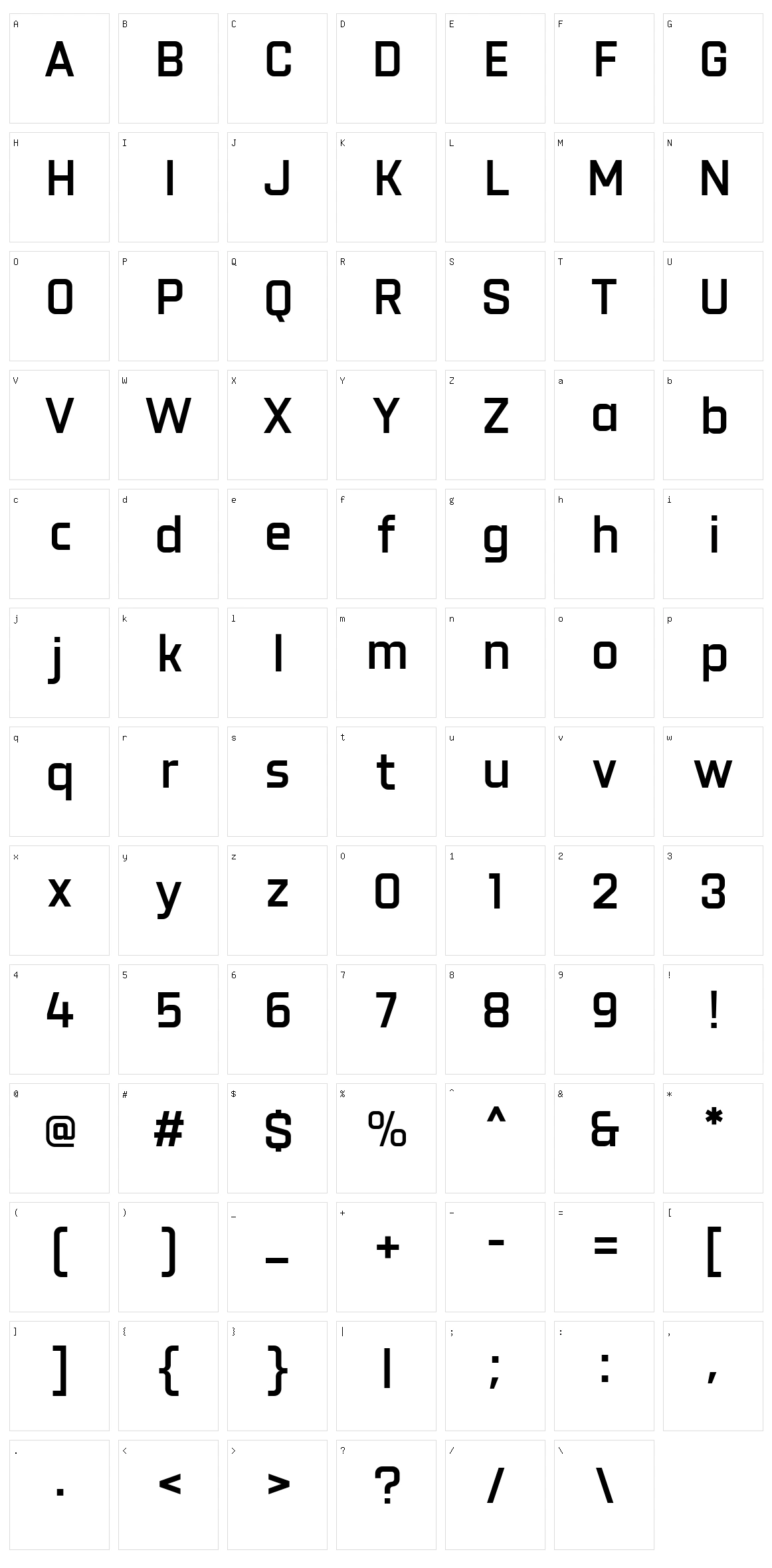
Revx Neue Typeface [Demo Version] by OneSevenPointFive
Revx Neue, an unsquared typeface is a modern sans serif. It contains 14 styles, 7 uprights and
the corresponding italics. The OpenType Latin Pro character set is crafted with opentype features,
alternative glyphs, kerning pairs and more which makes the font well featured. The typeface is
suitable for all platforms (web, display, print, etc.). Revx Neue blends beautifully in your designs.